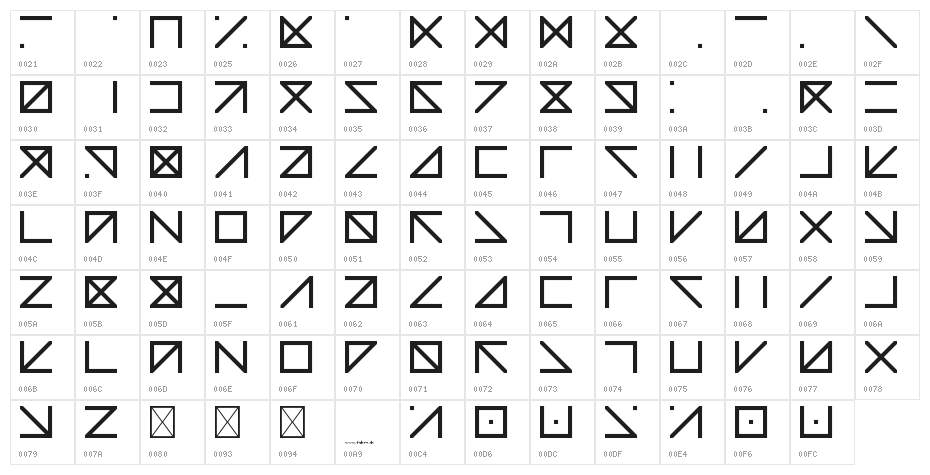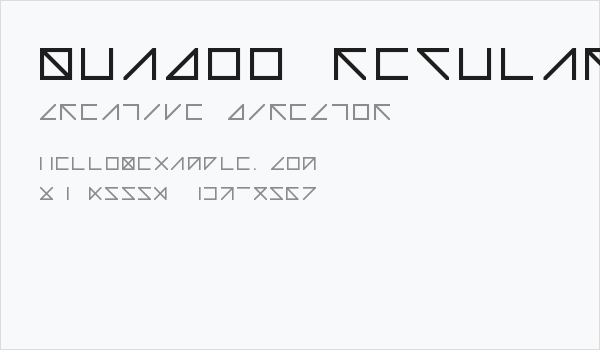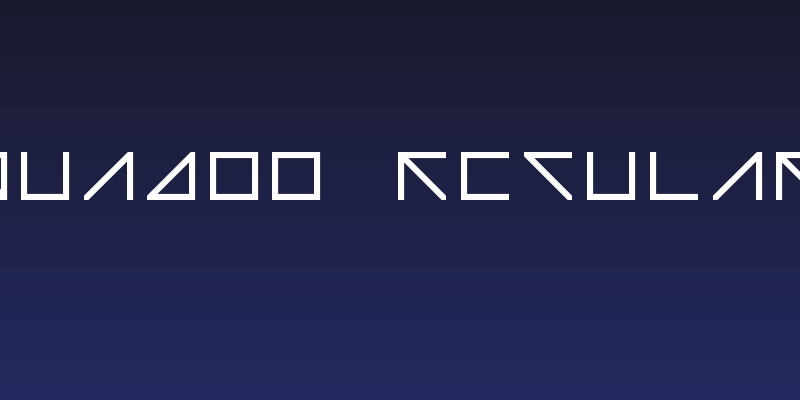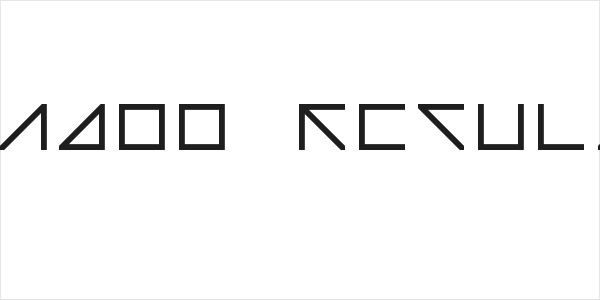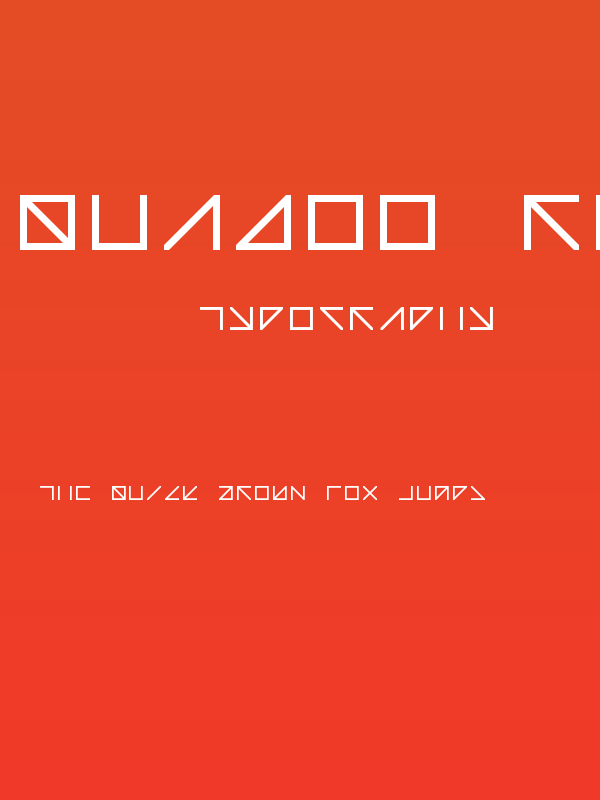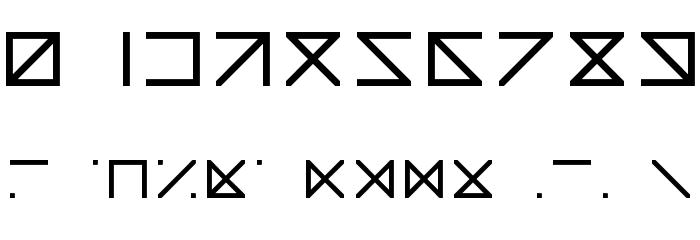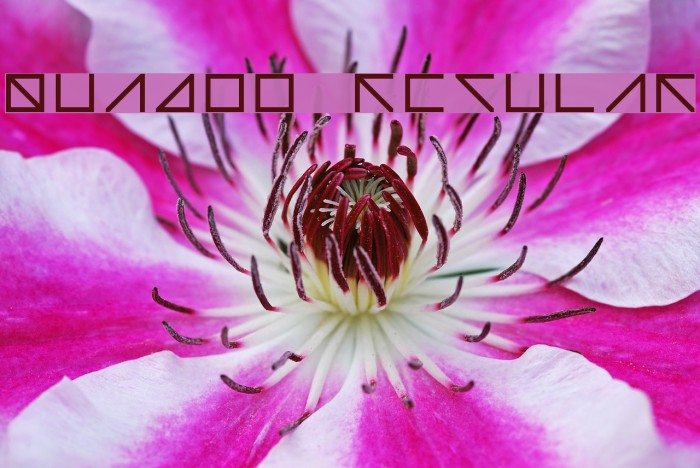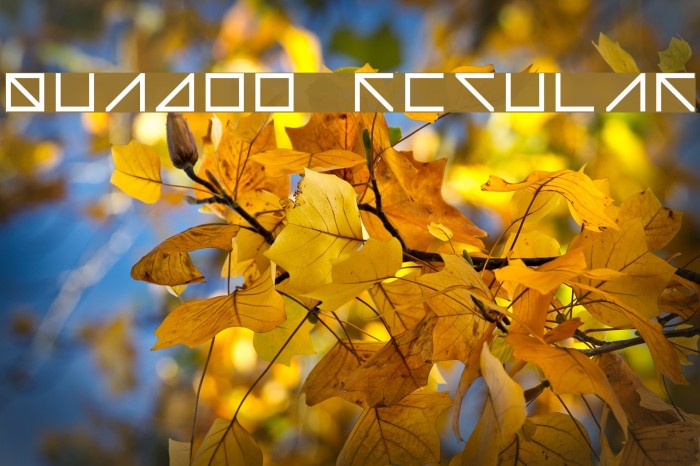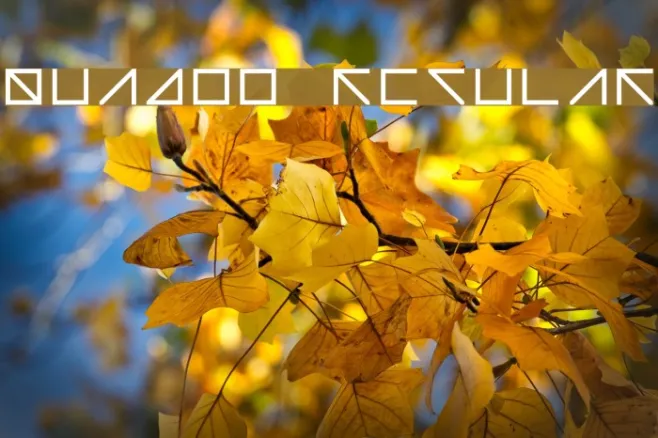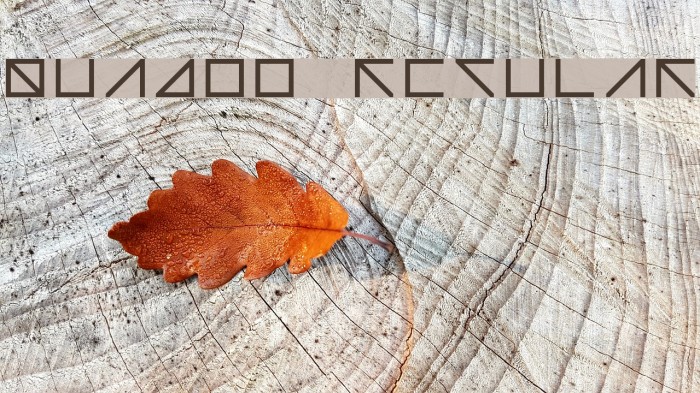
Quadoo Regular Font
Quadoo Regular Description
This font features a unique, geometric design with angular and linear elements that create a futuristic and abstract appearance. Each character is constructed with sharp angles and straight lines, giving it a distinct, modern aesthetic. The uppercase and lowercase letters maintain a consistent style, with minimal curves and a focus on symmetry and alignment. Numbers and special characters follow the same design principles, ensuring uniformity across all glyphs. The font's overall look is both innovative and striking, making it suitable for creative and contemporary projects.
| Proposed Projects | Ideal for sci-fi themed designs, modern branding, digital art, and innovative product packaging. |